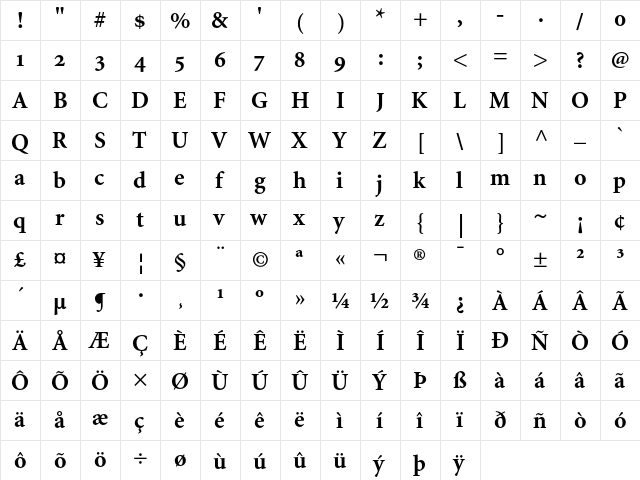
Minion Bold Oldstyle Figures
Design Context for Minion Typeface
Minion carries the refined structure of traditional serif typography, with bracketed terminals and considered proportions that communicate credibility and craft. The heavy weight commands attention and anchors typographic hierarchies.
Pro Tip: Set Minion with slightly loose tracking in headlines to let each letterform's detail read clearly at display sizes.